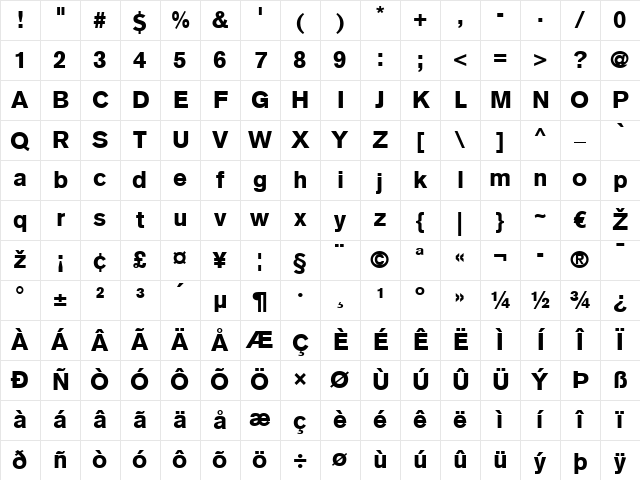
BasicCommercial LT Roman Bold
Design Context for BasicCommercial LT Roman
BasicCommercial LT Roman is a composed and adaptable typeface that performs quietly and consistently across a wide range of design contexts. Its bold stroke weight gives it real presence on the page.